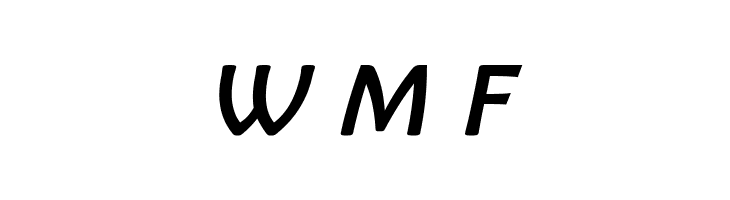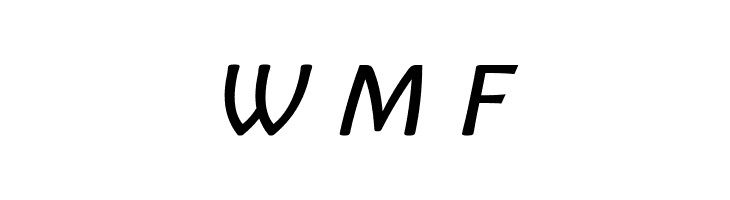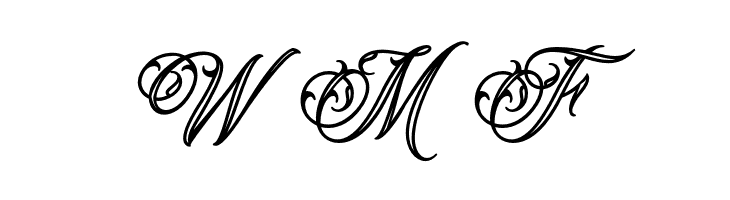
( Fonts by Paul Miller )
A bold, rounded font with a playful and professional style.
( Fonts by Paul Miller )
A bold, italic font with smooth curves and a slightly slanted style.
( Fonts by Paul Miller )
A smooth, flowing italic font with elegant curves and dynamic slant.
( Fonts by Paul Miller )
A playful, rounded font with a friendly and approachable style.
A bold, handwritten font with a dynamic and expressive style.
A modern, clean font with a playful touch and consistent stroke width.
A bold, brush-style font with dynamic, hand-painted strokes.
An intricate, decorative script font with flowing, interconnected letters and elaborate swashes.
An ornate and elegant script font with intricate swirls and flourishes.
An elegant script font with intricate swirls and flourishes.